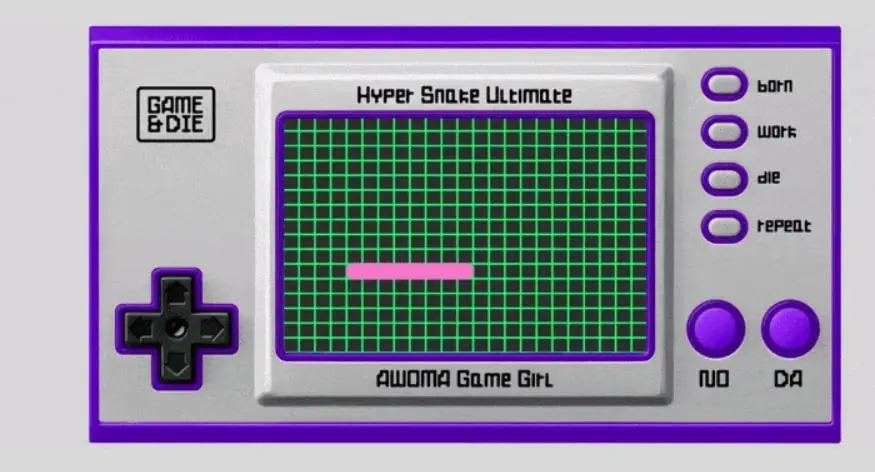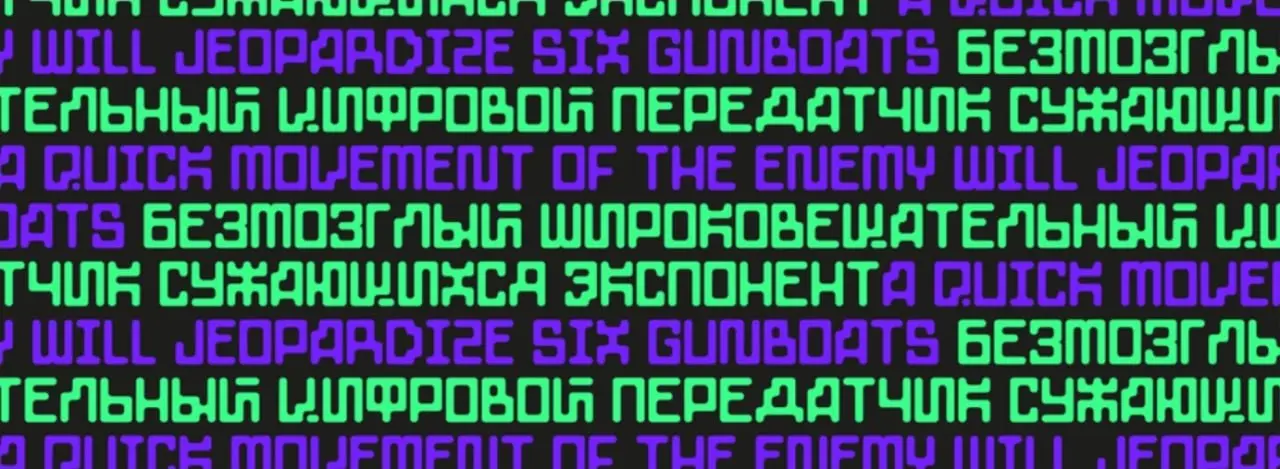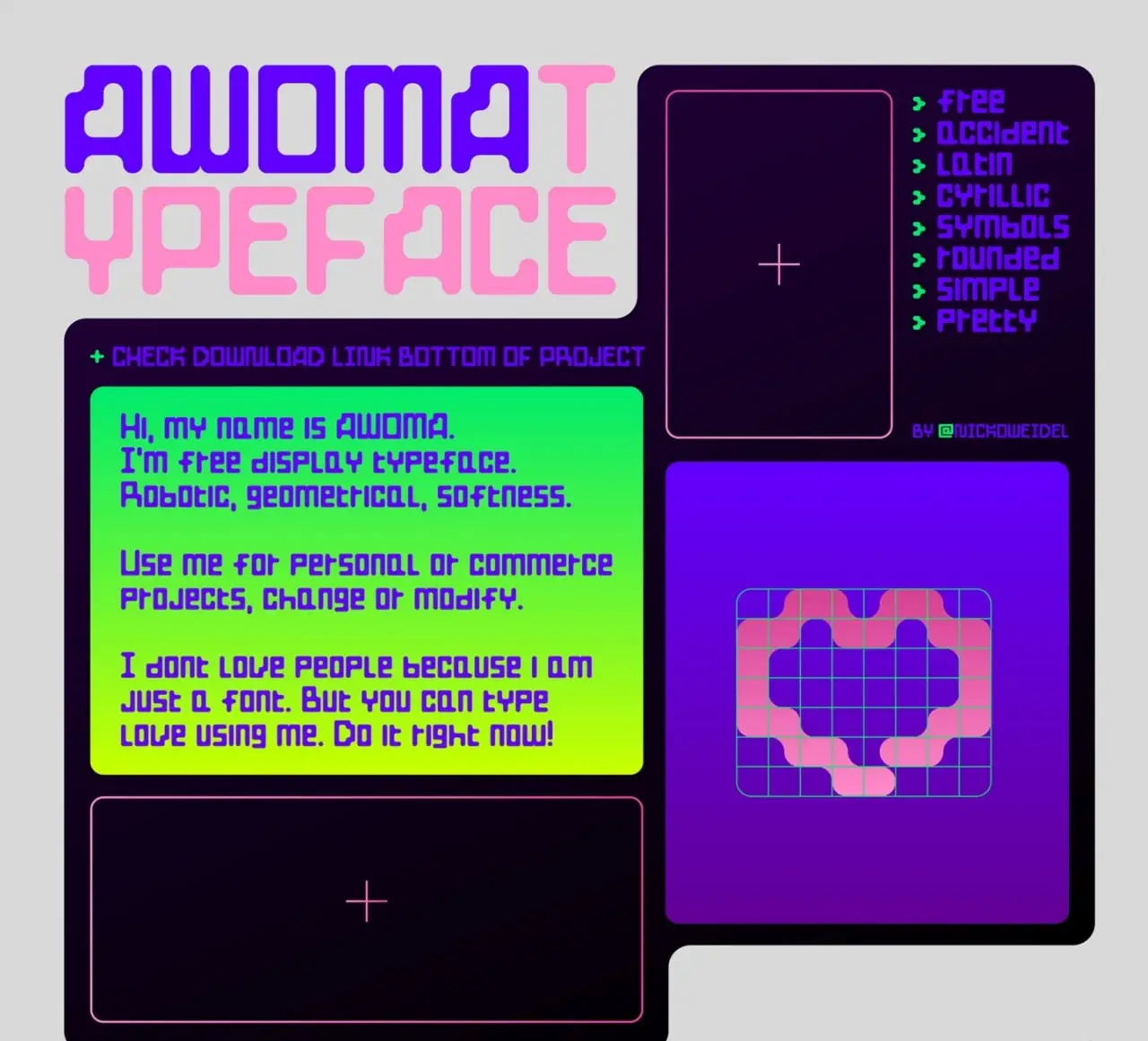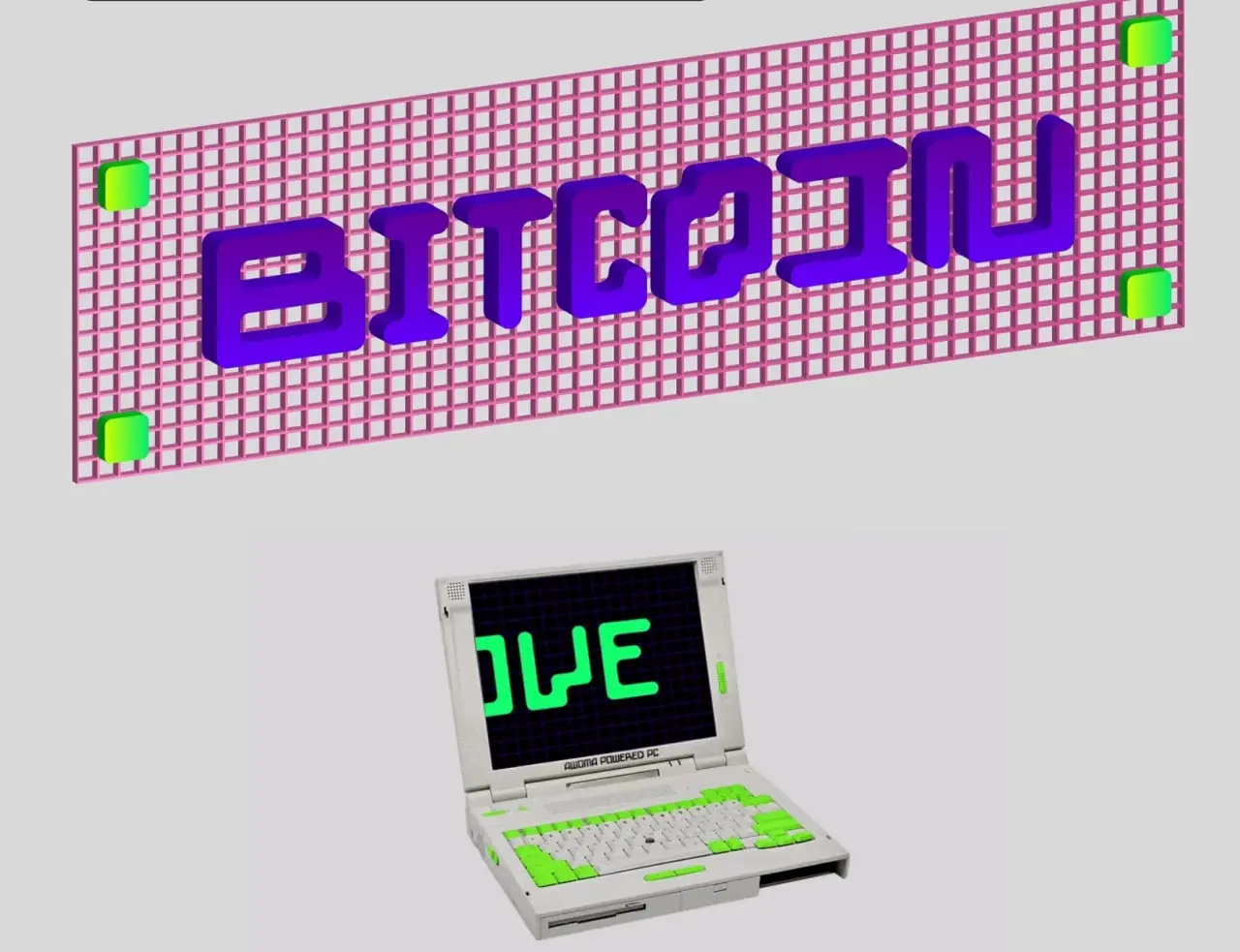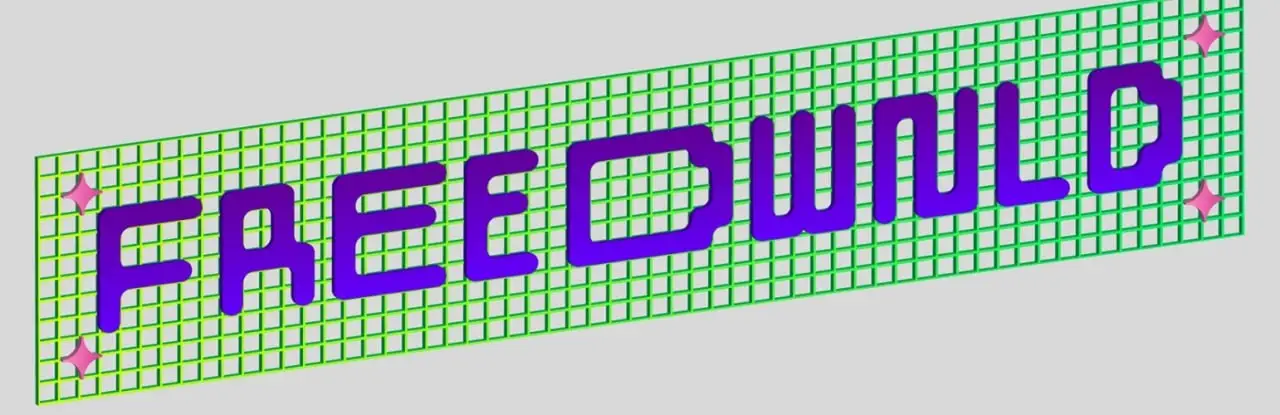
Nicko Weidel-Awoma Сyrillic & Latin Typeface
Introducing the Nicko Weidel-Awoma typeface, a beautifully crafted font that supports both Cyrillic and Latin scripts. This versatile typeface is perfect for a variety of design projects, from branding and logos to web and print applications.
• Supports Cyrillic and Latin alphabets
• Multiple weights for diverse applications
• Stylish and modern design suitable for various aesthetics
• Ideal for creating eye-catching logos and branding materials
• Use in web design for a unique and modern look
• Perfect for print projects such as posters, flyers, and business cards